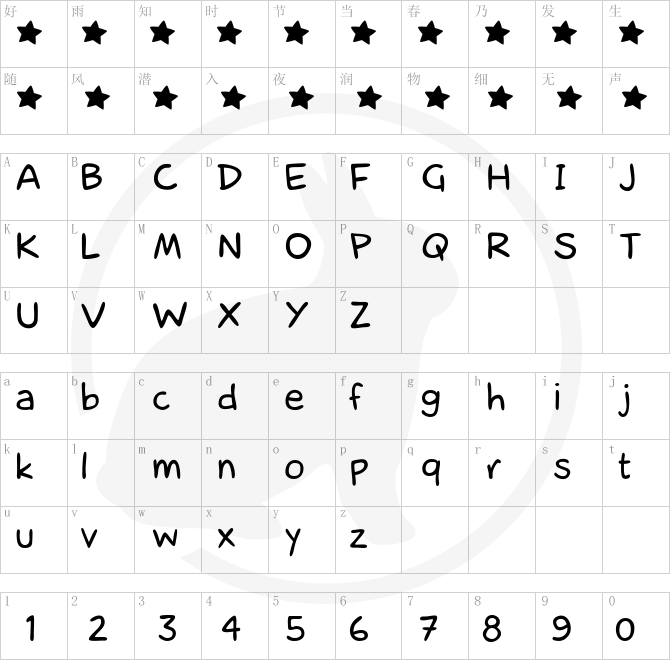
- Font Name:laCartoonerie
laCartoonerie.ttf is a very beautiful artistic font, laCartoonerie.ttf is widely used in the design and printing of various books and pictures,laCartoonerie.ttf has a strong visual impact,laCartoonerie.ttf is a commonly used font in newspapers, magazines and books, and is used in posters, e-commerce Poster design, store design, logo design, font design and other fields.laCartoonerie.